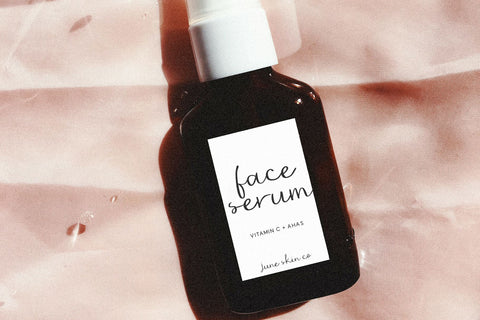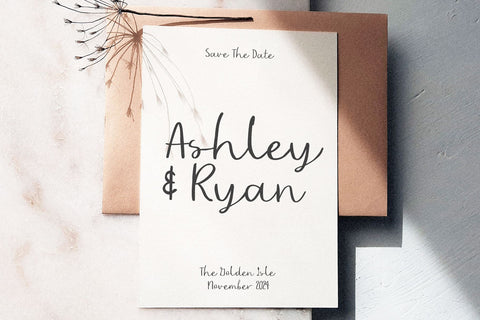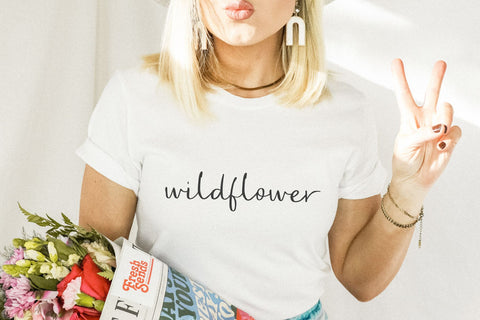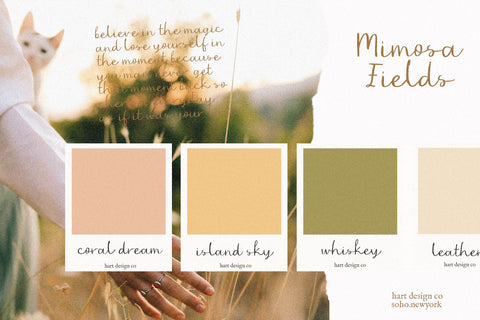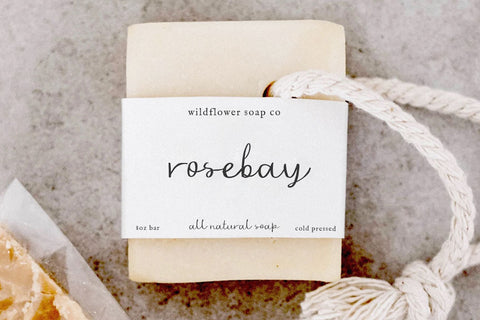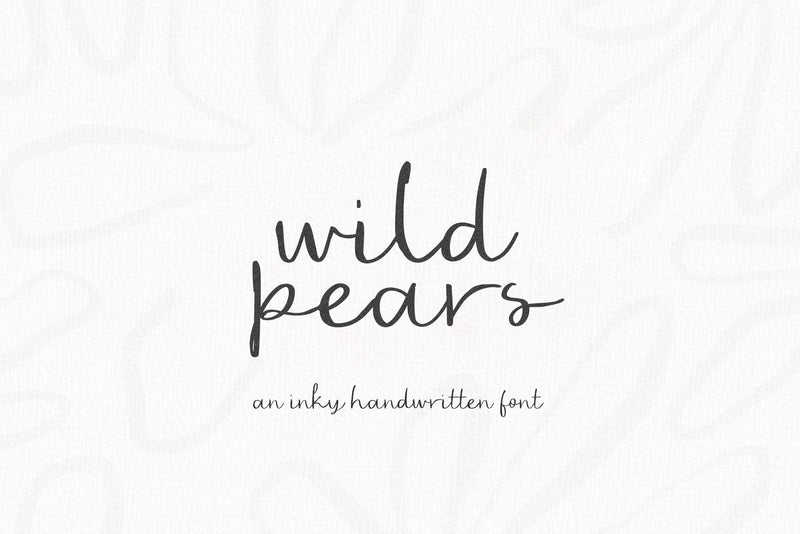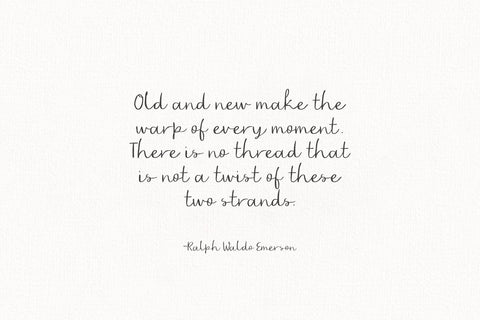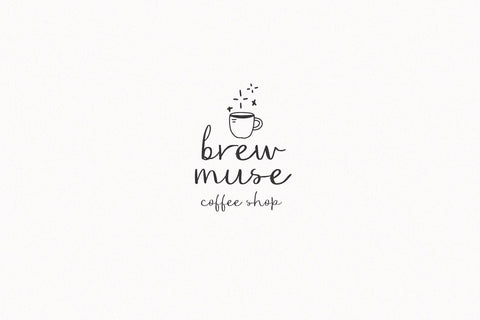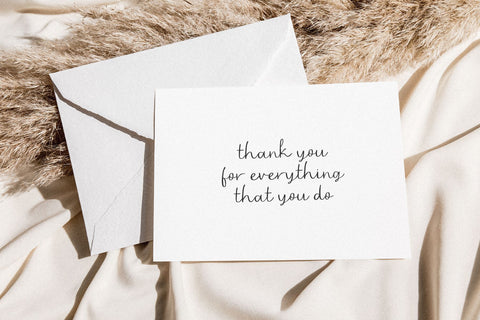
Wild Pears - Rustic Script Font
Wild Pears is an inky handwritten font. This font was created with authentic imperfections to mimic natural handwriting.
Wear Pears is perfect for logos, branding, packaging, quotes, cards, social media, invitations, farmhouse decor, rustic designs and more!